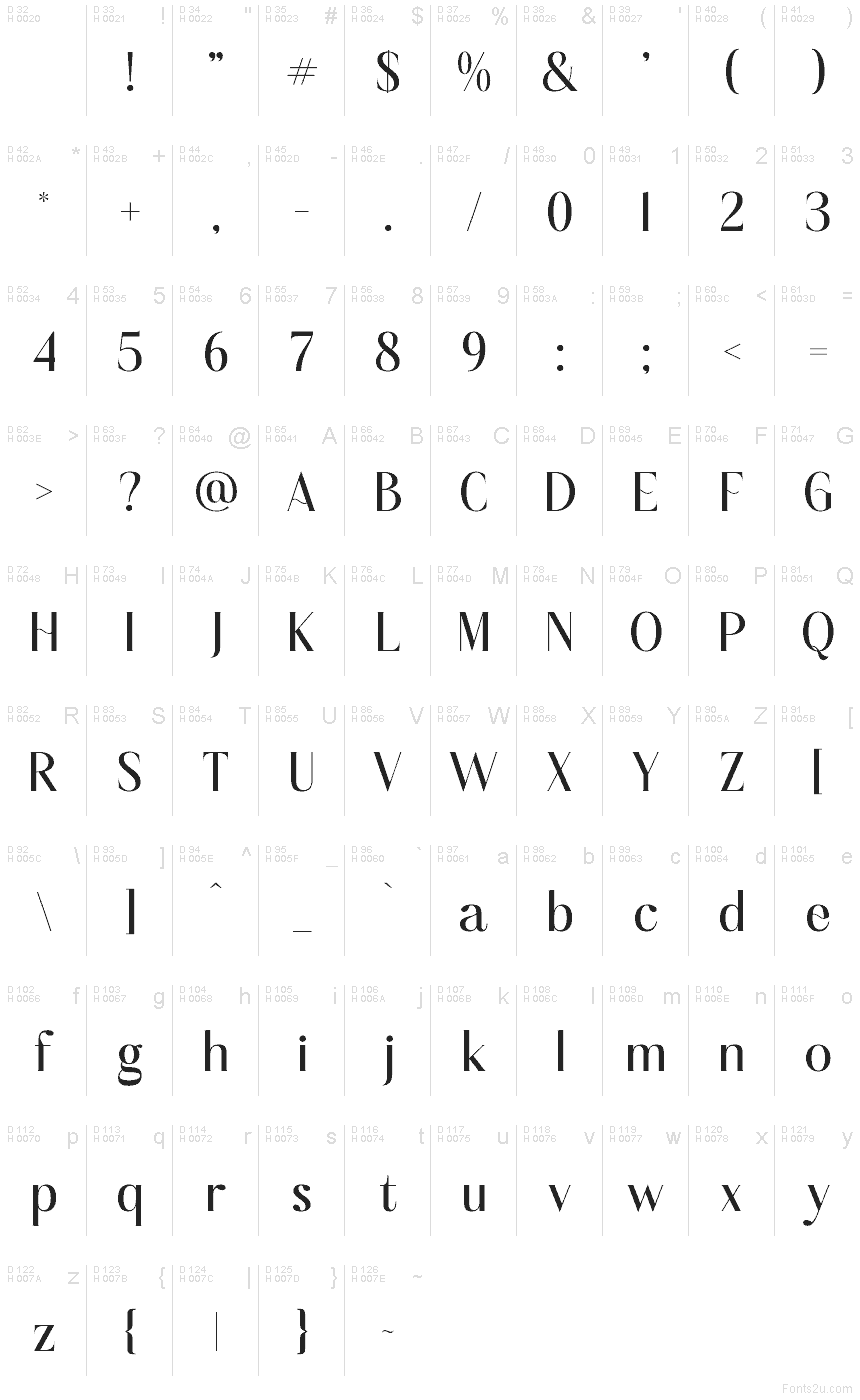
Rolisand
Rolisand font is a modern serif typeface by Storytype Studio that features an elegant, sophisticated, and professional style. It oozes classiness with its stylish letter design and refined overall appearance that puts it aside from other fonts of its kind.